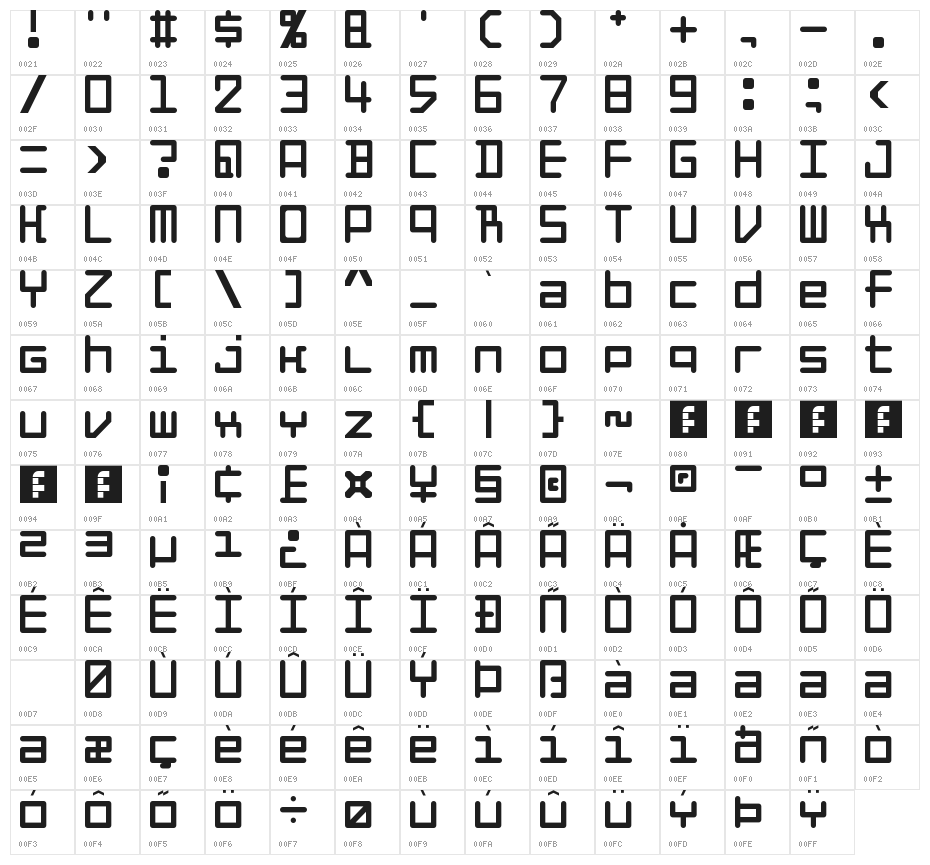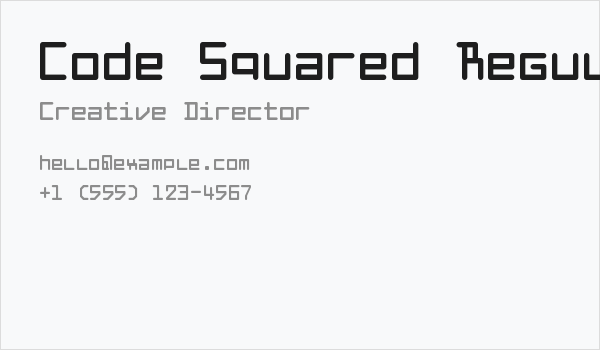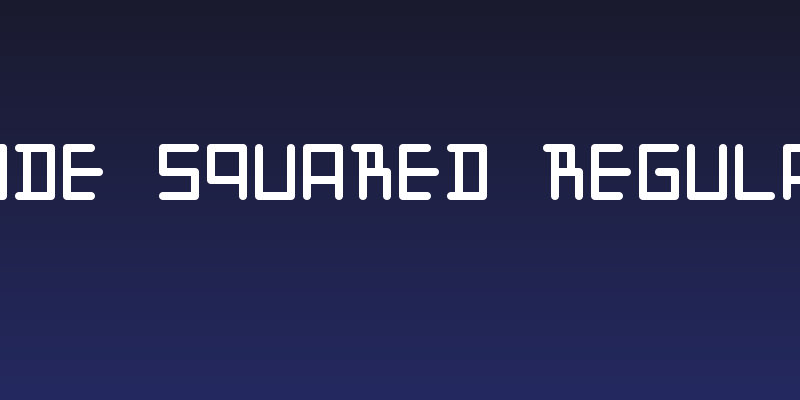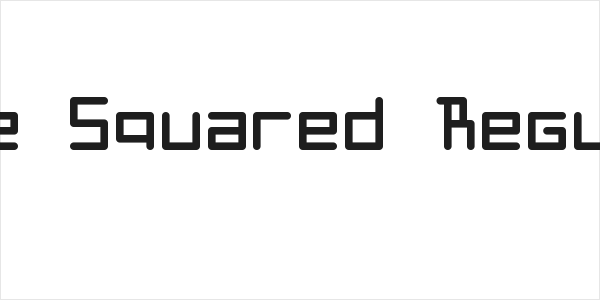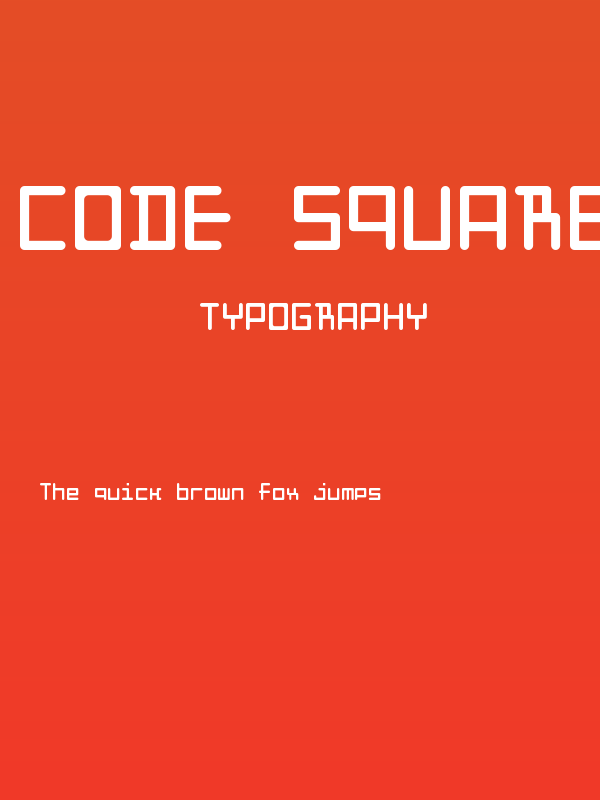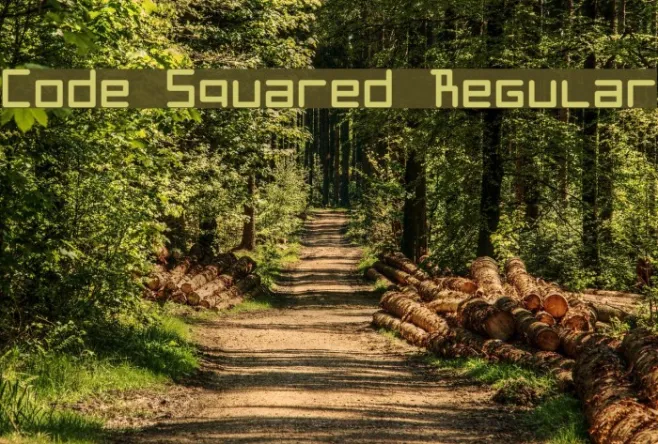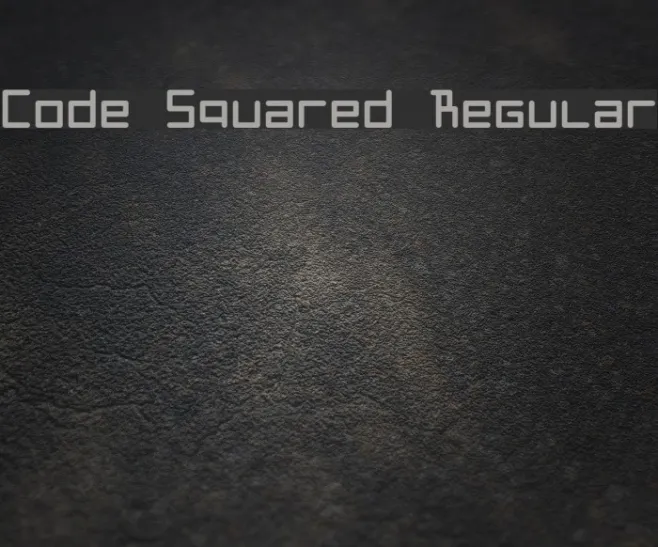
Code Squared Regular Font
Code Squared Regular Description
This font features a modern, geometric design with a squared-off appearance. The characters are constructed with consistent stroke widths, giving it a uniform and technical look. The uppercase and lowercase letters maintain a similar height, enhancing readability and creating a cohesive visual flow. The numerals and special characters are designed to match the overall aesthetic, with clean lines and sharp angles. This font's style is reminiscent of digital or technological themes, making it suitable for projects that require a contemporary and structured appearance.